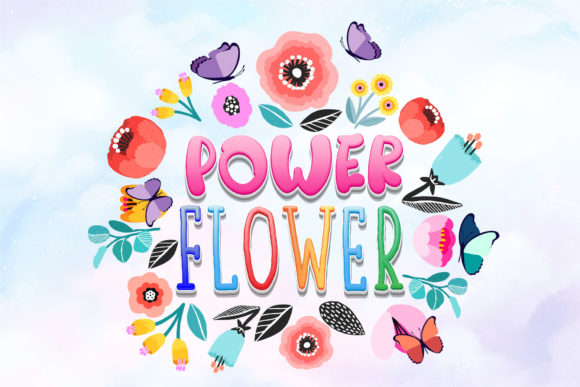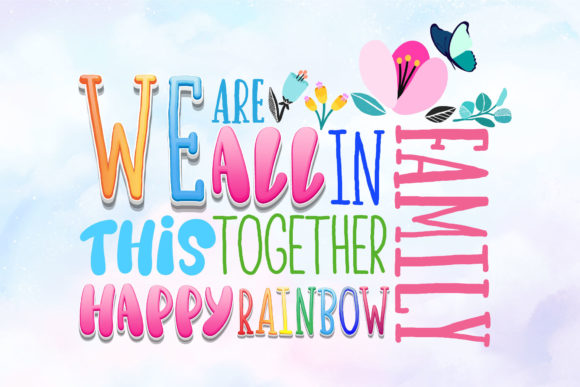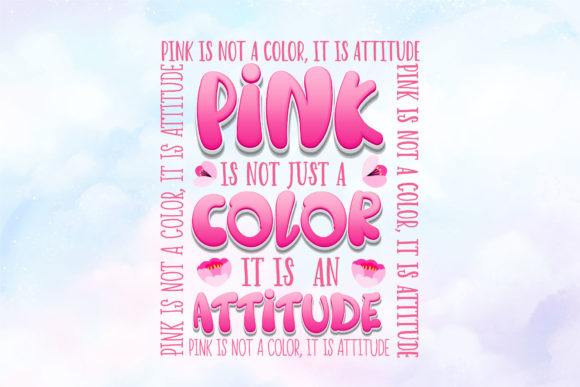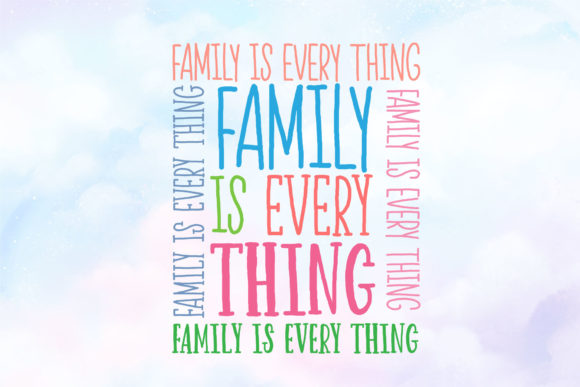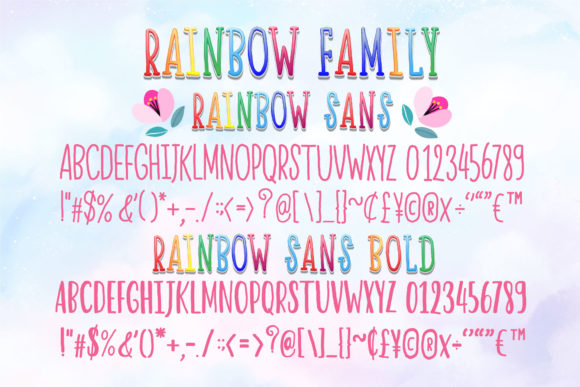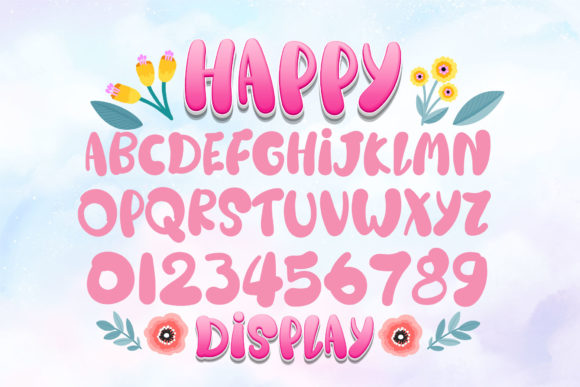
Unleashing the Magic of Happy Rainbow Family Font
Do you remember the excitement of creating a handmade card for your loved one on their birthday? The hours spent cutting out colorful shapes, adding glitter, and signing your name with a flourish? Those moments are etched in our memories forever, and they’re exactly what the Happy Rainbow Family Font aims to capture. This lovely trio font (display, serif, and script) is designed to evoke the same sense of playfulness and authenticity that we experience in our childhood.
As a designer, you’re always on the lookout for fonts that can add a touch of personality to your projects. Happy Rainbow Family Font is the perfect choice for any children’s activity or school project, and its value extends beyond its aesthetic appeal. This font is a valuable asset in your design toolkit, offering a unique blend of fun and sophistication that’s sure to delight your clients and audience.
Key Features of Happy Rainbow Family Font
- Font Family: A unique and playful font family consisting of multiple styles, including bold, italic, and regular.
- Character Set: The font includes a wide range of characters, including Latin, Cyrillic, and Greek alphabets, as well as punctuation marks and symbols.
- Unique Characteristics: The font features a vibrant and colorful design, with each letter and symbol carefully crafted to evoke a sense of happiness and playfulness.
Happy Rainbow Family Font Review
Overall, I think the Happy Rainbow Family Font is a fun and playful addition to any project. Here are some things that work well: ✨
- The font is highly customizable, allowing you to adjust the size, color, and spacing to fit your needs.
- The font includes a variety of characters, including uppercase and lowercase letters, numbers, and special characters.
- The font is fully editable, making it easy to modify and customize to your heart’s content.
- The font may not be suitable for formal or professional projects, as it can come across as a bit too playful.
Overall, I think the Happy Rainbow Family Font is a great choice for personal or creative projects where you want to add a bit of whimsy and fun. However, it may not be the best choice for more formal or professional projects.
For best results, use the font in a playful and whimsical design, such as a children’s birthday invitation or a family reunion poster.
Use the font to create eye-catching headings and titles in your designs, such as a logo or a brochure.
Use the font to add a playful touch to your presentations or documents, such as a children’s report or a family newsletter.
The Happy Rainbow Family Font is ideal for:
Children’s party invitations and decorations
Family reunion posters and flyers
Children’s books and educational materials
Playful headings and titles in logos and brochures